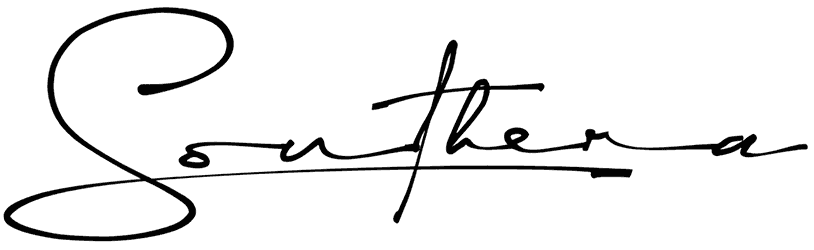
Southera Font
If you want to have a natural and elegant vibe in your design at the same time, don’t pass on this item. Southera is a signature font with an incredibly delicate pen lettering style and a dapper mood, but a little unreadable. This signature script font is an ace pickup for greeting cards, fashion ads, planners, and a lot more others the same.